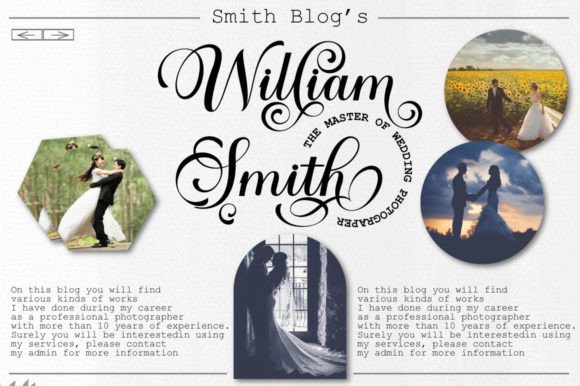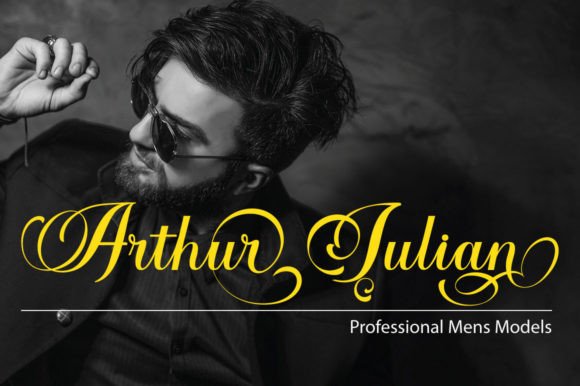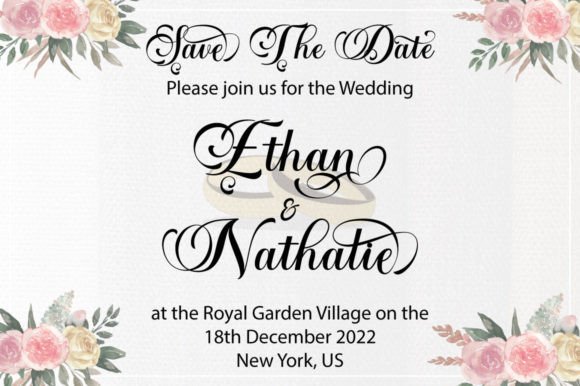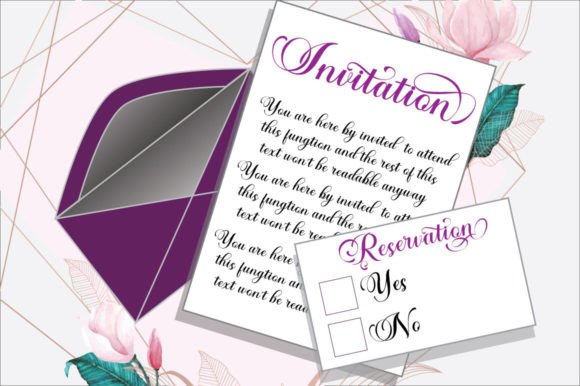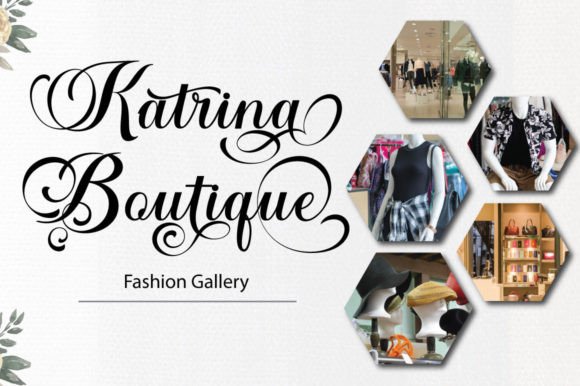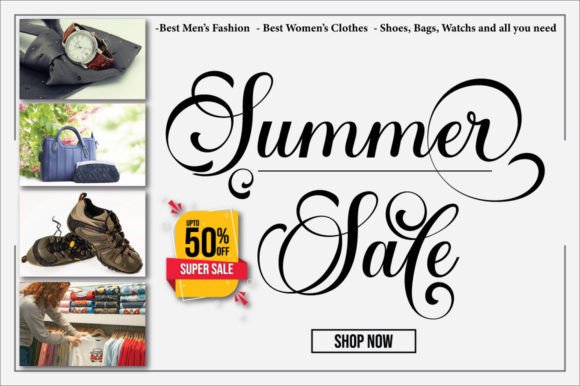
Introducing Dear Nathalie Font: Elevate Your Designs with Elegance and Sophistication
Are you a designer or crafter looking for a font that exudes confidence, exuberant energy, and luxury? Look no further than Dear Nathalie Font, a modern and stylish calligraphy script font that is sure to elevate your designs to the next level. With its elegant characters and touch of sophistication, Dear Nathalie Font is the perfect choice for a wide range of projects, from wedding invitations and fashion branding to logotypes and more.
The Perfect Blend of Style and Elegance
Dear Nathalie Font is carefully crafted with attention to detail, ensuring that every character is a masterpiece of elegance and refinement. The font’s modern and stylish design makes it perfect for designers and crafters who want to add a touch of luxury to their projects. Whether you’re creating wedding invitations, fashion branding, or logotypes, Dear Nathalie Font is sure to impress.
Key Features of Dear Nathalie Font
- PUA Encoded: Dear Nathalie Font is PUA encoded, which means you can access all of the glyphs and swashes with ease. This makes it simple to customize your designs and add a personal touch.
- Elegant Characters: Every character in Dear Nathalie Font is carefully crafted with elegance and sophistication in mind. The font’s characters are perfect for creating designs that exude confidence and exuberant energy.
- Versatile: Dear Nathalie Font is suitable for a wide range of projects, including wedding invitations, fashion branding, logotypes, and more. Its versatility makes it a valuable addition to any designer’s or crafter’s toolkit.
- Luxury Spark: Dear Nathalie Font is designed to add a luxury spark to any design project. Its elegant characters and modern design make it perfect for creating designs that stand out from the crowd.
Why Choose Dear Nathalie Font?
There are many reasons why Dear Nathalie Font is the perfect choice for designers and crafters. Here are just a few:
- Unique and Exclusive: Dear Nathalie Font is a unique and exclusive font that will help you stand out from the crowd. Its elegant characters and modern design make it perfect for creating designs that are truly one-of-a-kind.
- Easy to Use: Dear Nathalie Font is easy to use and customize, even for designers and crafters who are new to calligraphy script fonts. Its PUA encoding makes it simple to access all of the glyphs and swashes.
- High-Quality: Dear Nathalie Font is a high-quality font that is designed to deliver exceptional results. Its elegant characters and modern design make it perfect for creating designs that are professional and sophisticated.
Dear Nathalie Font is a modern and stylish calligraphy script font that is perfect for designers and crafters who want to add a touch of elegance and sophistication to their designs. With its elegant characters, PUA encoding, and versatility, Dear Nathalie Font is the perfect choice for a wide range of projects. Whether you’re creating wedding invitations, fashion branding, or logotypes, Dear Nathalie Font is sure to impress. So why wait? Download Dear Nathalie Font today and start creating designs that exude confidence, exuberant energy, and luxury!